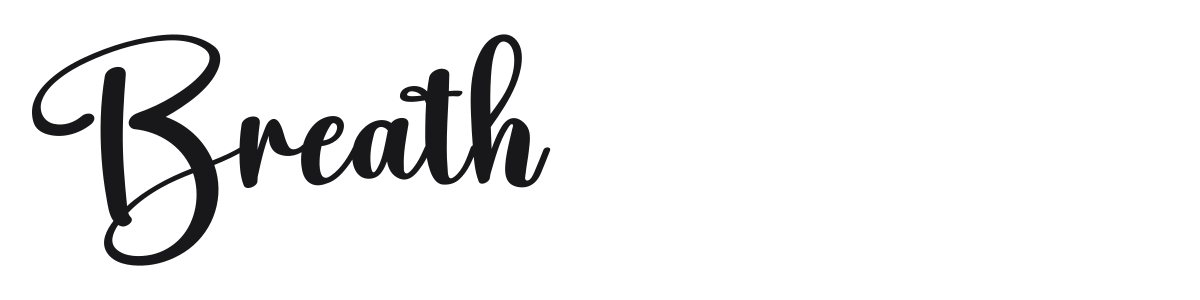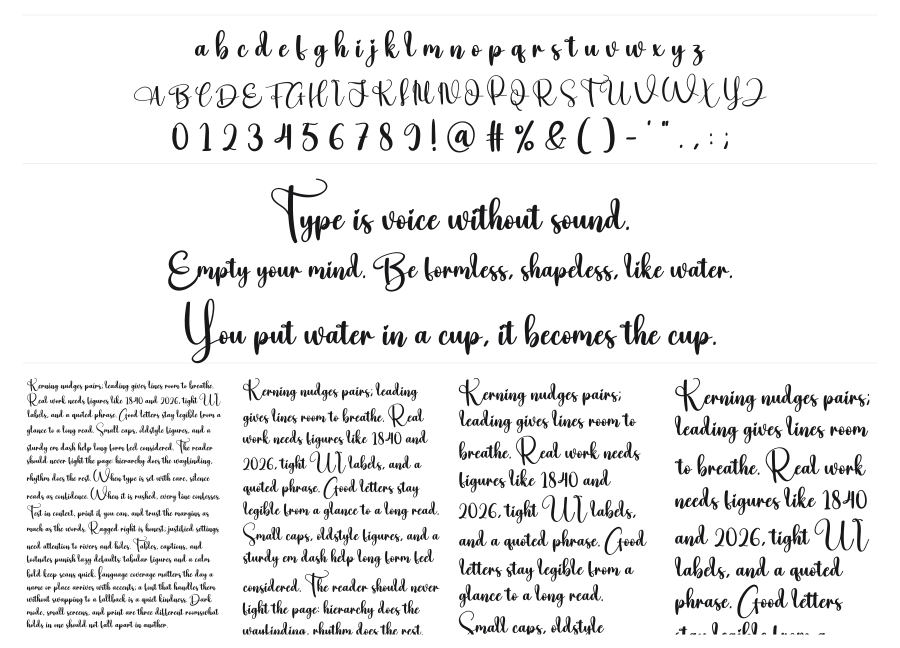
Breath
by Scratchones · Website
Breath is a bold contemporary brush script full of fluid energy and natural charm. The high-contrast strokes, looping ascenders, and rhythmic connections give it the feel of confident hand-lettering, with a small decorative heart tucked into the design as a personal touch. It excels at wedding stationery, lifestyle branding, and any project that calls for warmth and personality.